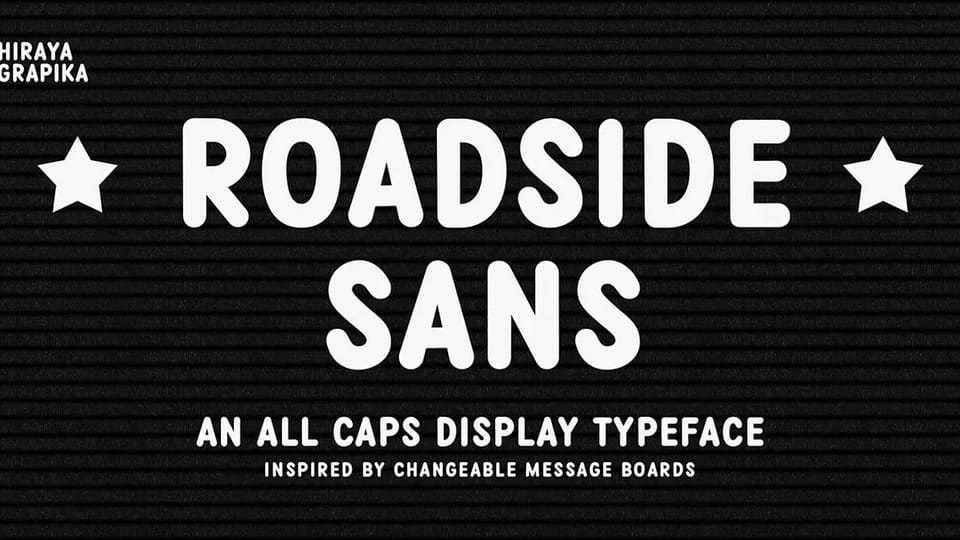
Download Roadside Sans font, a rounded, semi-condensed, all-caps display typeface inspired by the bold letters of retro changeable sign boards.
Designer: Emmanuel Ludovice